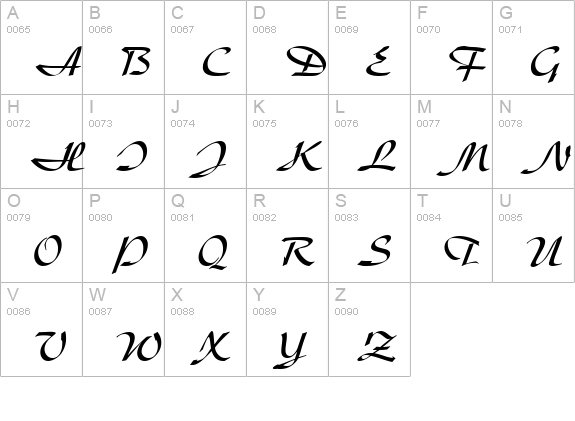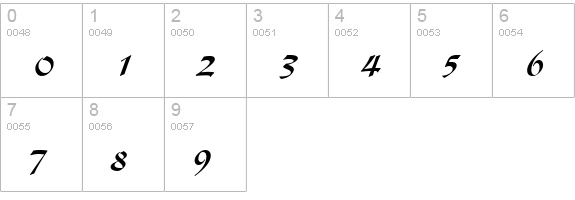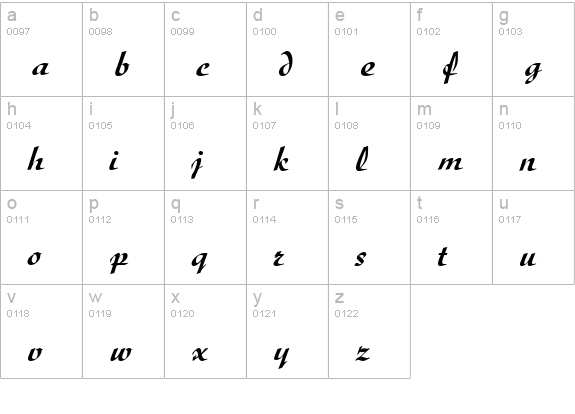
D730-Script-Regular is the standard, neutral variant in the D730 typeface family \xE2\x80\x94 well suited to general body text, paragraphs, and standard typographic work.
The D730-Script-Regular font is a beautiful and elegant script typeface that exudes sophistication and charm. Its flowing lines and graceful curves make it perfect for adding a touch of class to any design project. Whether you're creating wedding invitations, branding materials, or social media graphics, this font will elevate your work to the next level. What's even better is that the D730-Script-Regular font is completely free to download at FontsMarket.com. This means you can use it in your personal and commercial projects without any restrictions. Take advantage of this amazing offer and enhance your designs with the timeless beauty of the D730-Script-Regular font today!